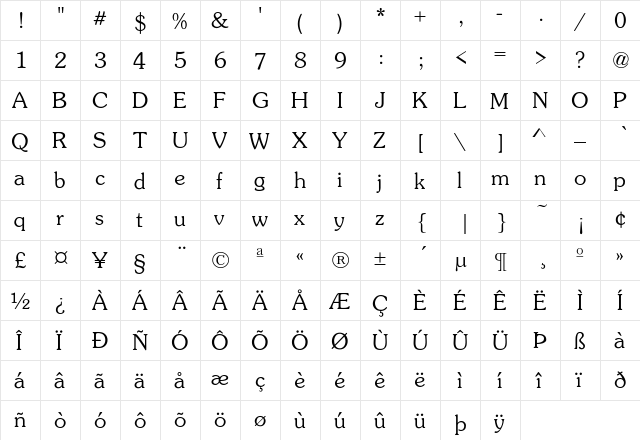
Silveron Regular
Design Context for Silveron Typeface
Silveron is a composed and adaptable typeface that performs quietly and consistently across a wide range of design contexts.